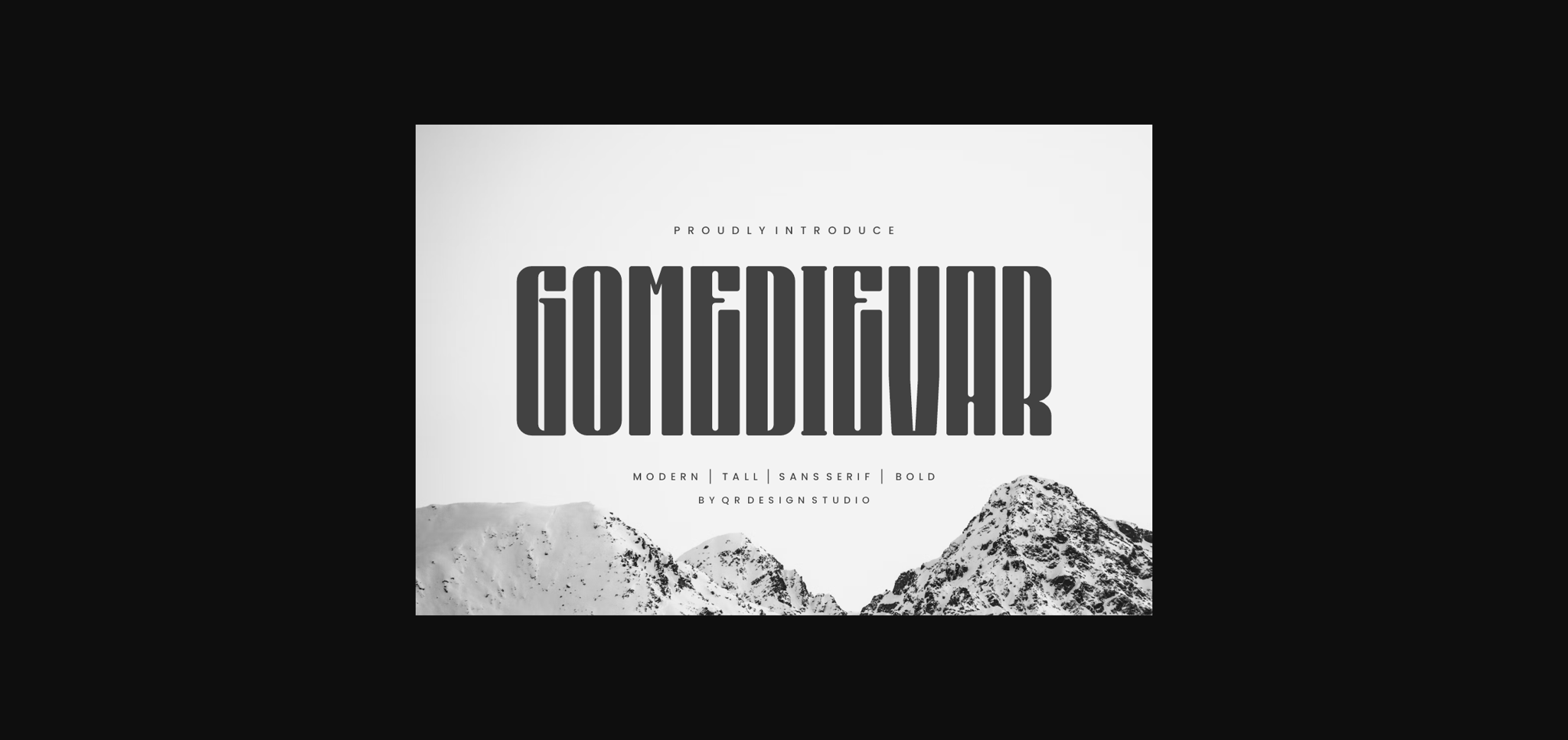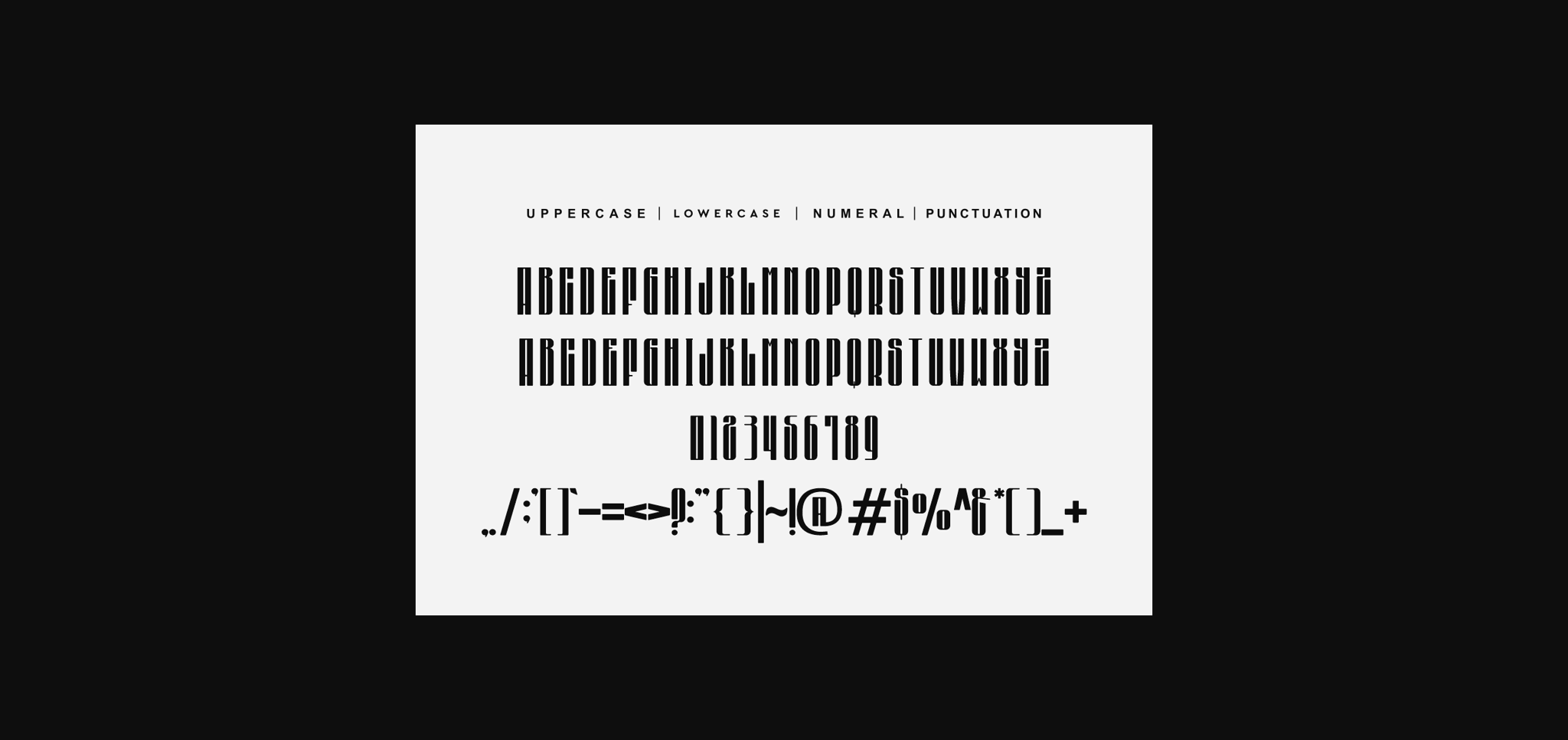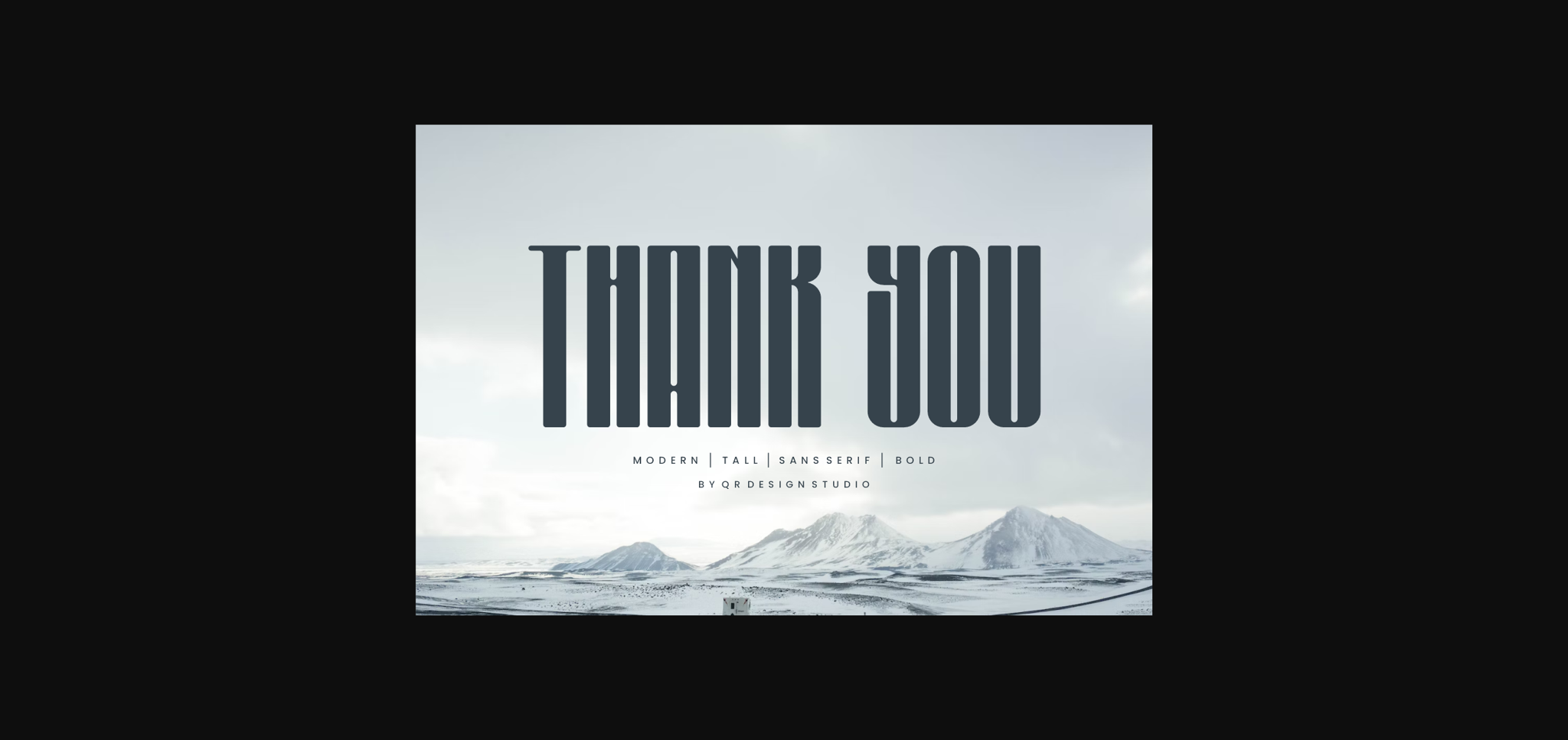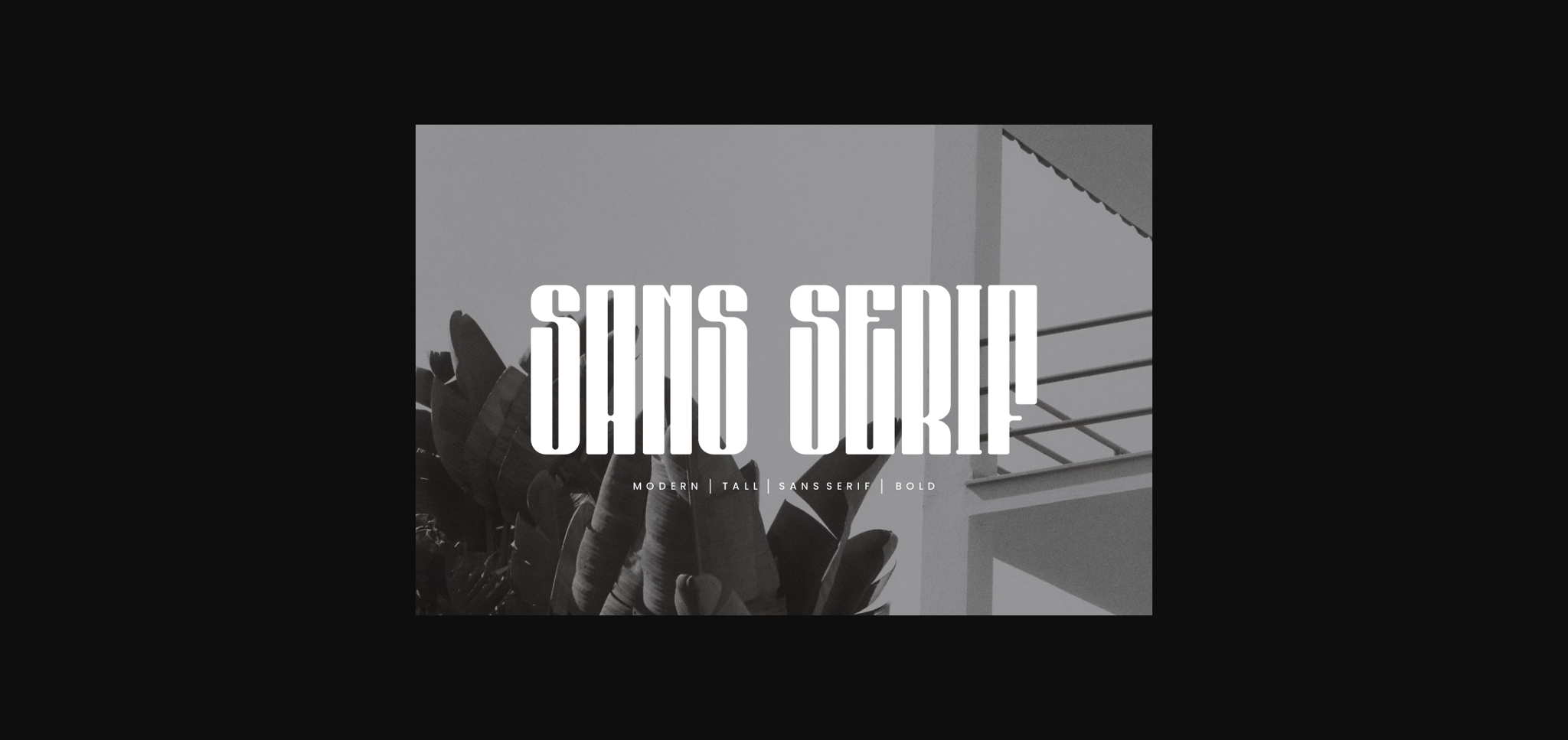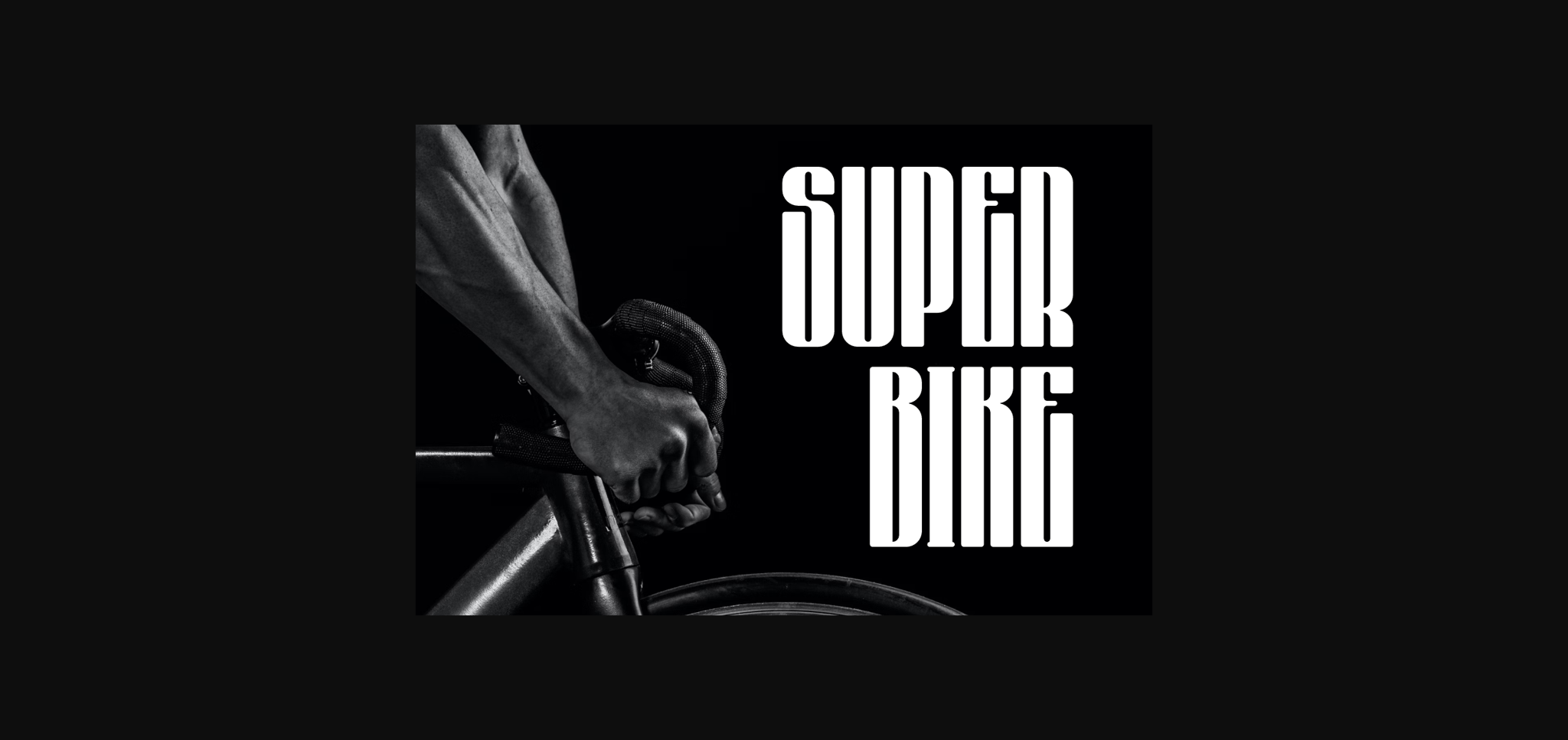
About Gomedievar Font
Gomedievar Font is a bold and authentic display font.
The font is suitable for any branding project like logo, sport, and many more.